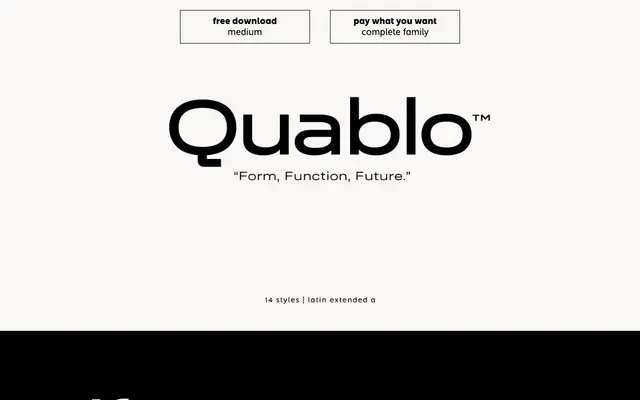
Quablo
atipo foundry · Raul Garcia del Pomar, Ismael Gonzalez (atipo) · 2022
Quablo specimen from atipo foundry
A contemporary geometric sans from atipo in seven weights with italics, supplied with tabular figures and a wide Latin extended language set.
A geometric sans by atipo, summarised by the studio with the line Form, Function, Future. Fourteen styles run across seven weights from Thin to Bold with matching italics, and the family carries tabular figures, fractions, superiors and ordinals along with a deep Latin extended language set covering minority and creole scripts alongside the major European languages. Sits in identity, product and editorial work where you want a calm geometric voice with broad language reach. Atipo offer Medium as a free download with the rest of the family on a pay what you want basis.
Atipo summarise Quablo with the line Form, Function, Future, positioning it as a contemporary geometric sans with seven weights and a wide Latin extended language set.